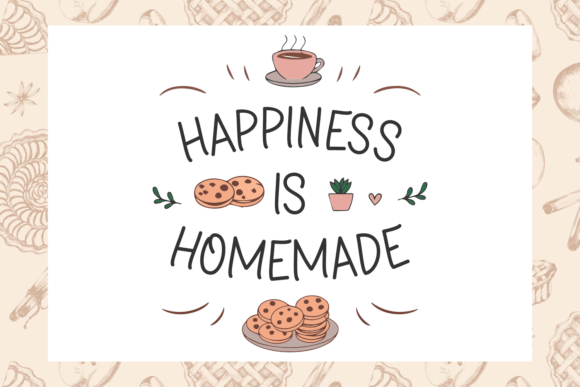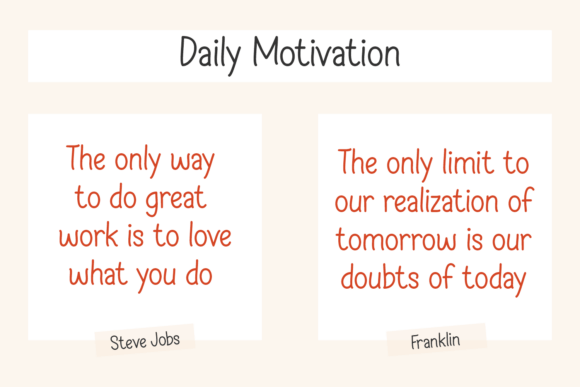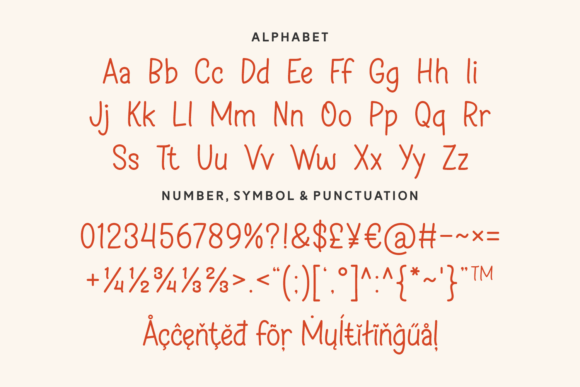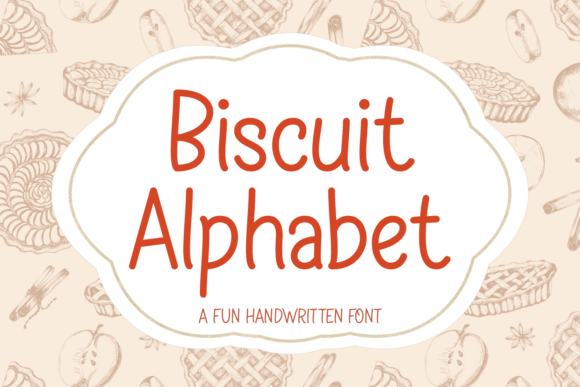
Warm Up Your Designs with Biscuit Alphabet Font
Are you looking for a font that can add a touch of warmth and coziness to your designs? Look no further than Biscuit Alphabet, a delightful and charming handwritten font that’s sure to make your projects feel as comforting as a fresh batch of cookies.
What is Biscuit Alphabet Font?
Biscuit Alphabet is a beautiful, handwritten typeface that features soft, rounded strokes and a friendly, informal rhythm. This font is perfect for designers and crafters who want to add a personal touch to their work, making it ideal for food packaging, bakery logos, DIY blog headers, and children’s event invitations.
The Characteristics of Biscuit Alphabet Font
So, what makes Biscuit Alphabet font so special? Here are just a few of its key characteristics:
- Soft and Rounded Strokes: Biscuit Alphabet features soft, rounded strokes that give it a warm and inviting feel.
- Clean Legibility: Despite its playful nature, Biscuit Alphabet has clean legibility, making it perfect for use on both digital screens and printed stationery.
- Handwritten Charm: This font has a charming, handwritten quality that makes it perfect for adding a personal touch to your designs.
- Informal Rhythm: Biscuit Alphabet has a friendly, informal rhythm that’s perfect for creating a sense of approachability and warmth.
Perfect for Food Packaging and Bakery Logos
If you’re a food brand or bakery looking for a font that can help you stand out, Biscuit Alphabet is an excellent choice. Its warm and inviting nature makes it perfect for packaging and logos, and its clean legibility ensures that it will work beautifully on a variety of materials, from labels and wrappers to menus and signage.
DIY Blog Headers and Children’s Event Invitations
Biscuit Alphabet is also a great choice for DIY bloggers and event planners who want to add a personal touch to their work. Its charming, handwritten quality makes it perfect for blog headers, social media graphics, and children’s event invitations, such as birthday party invites, baby showers, and more.
Why Choose Biscuit Alphabet Font?
So, why should you choose Biscuit Alphabet font for your next project? Here are just a few reasons:
- Unique and Eye-Catching: Biscuit Alphabet is a unique and eye-catching font that’s sure to grab attention.
- Easy to Read: Despite its playful nature, Biscuit Alphabet is easy to read, making it perfect for use on a variety of materials.
- Versatile: This font is versatile and can be used on everything from packaging and logos to blog headers and social media graphics.
- Radiates Homemade Charm: Biscuit Alphabet radiates homemade charm and approachable personality, making it perfect for brands and businesses that want to create a sense of warmth and welcoming.
| Font Name | Biscuit Alphabet Font |
| Author | Arnika Studio |
If you’re looking for a font that can add a touch of warmth and coziness to your designs, Biscuit Alphabet is an excellent choice. Its soft, rounded strokes, clean legibility, and charming, handwritten quality make it perfect for a variety of projects, from food packaging and bakery logos to DIY blog headers and children’s event invitations. So why not give Biscuit Alphabet a try and see how it can help take your designs to the next level?